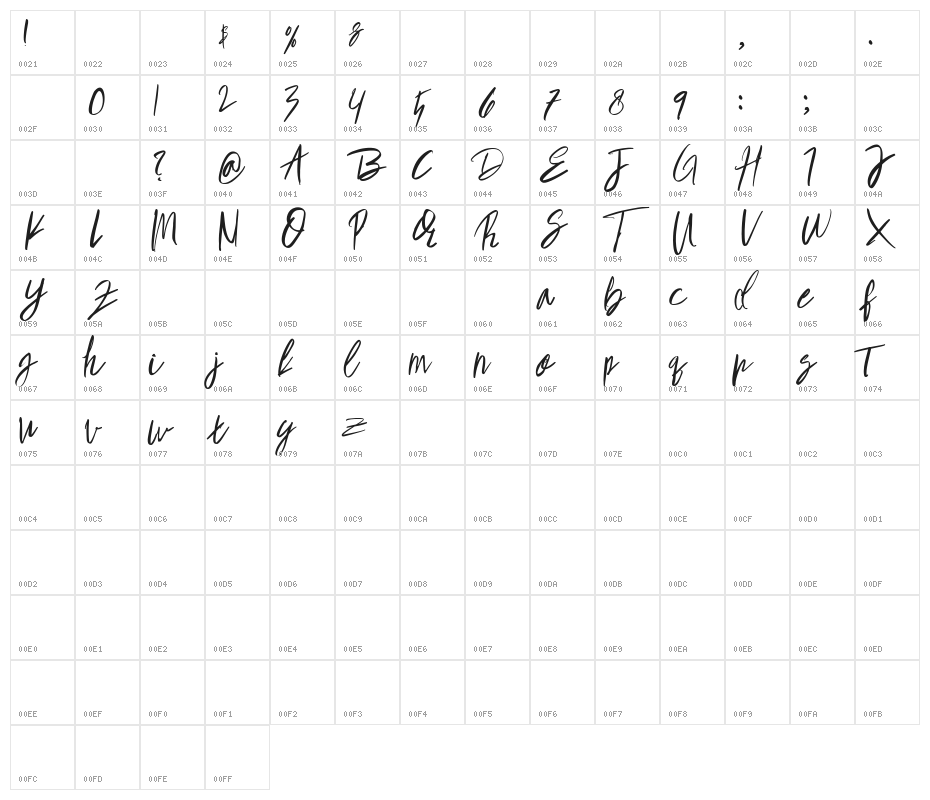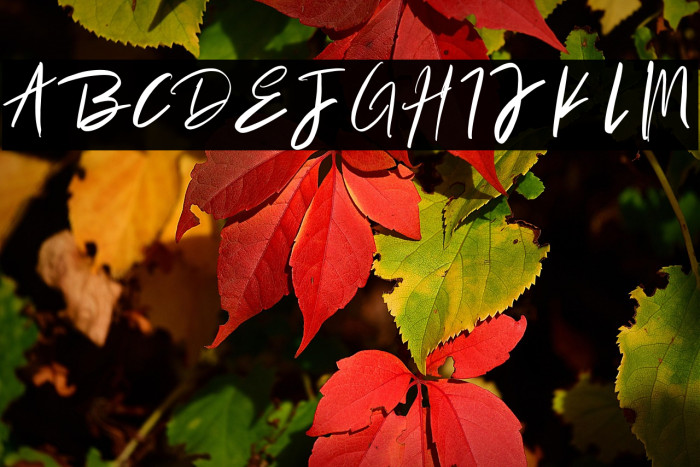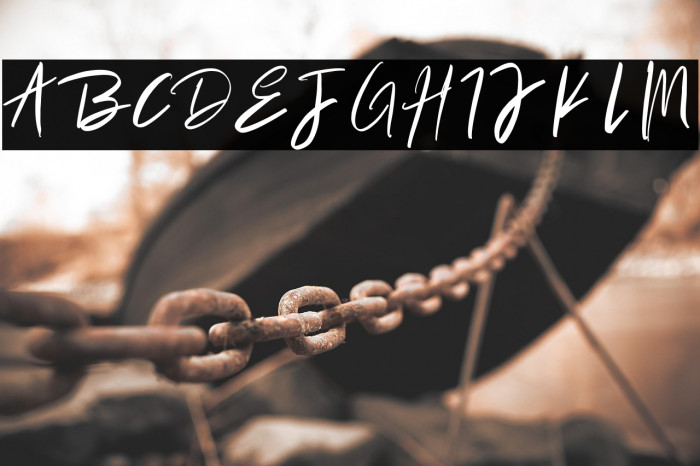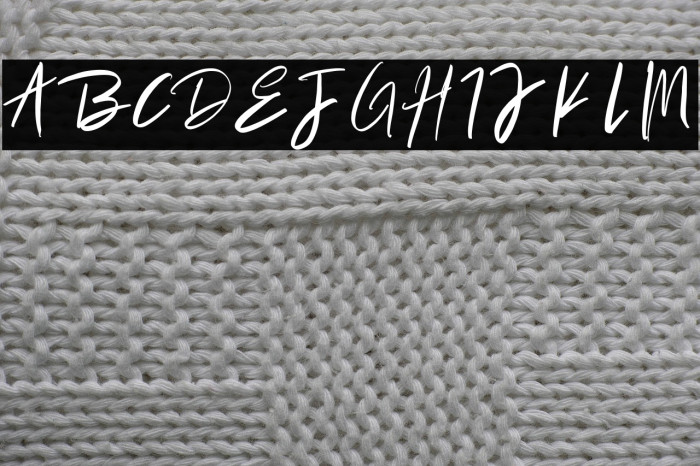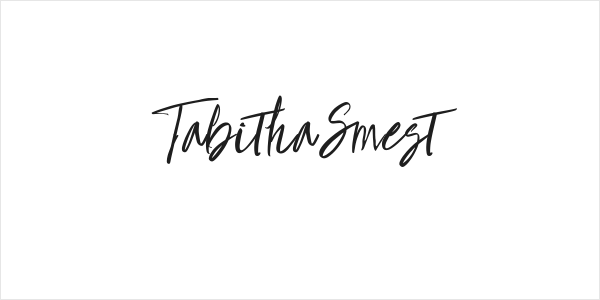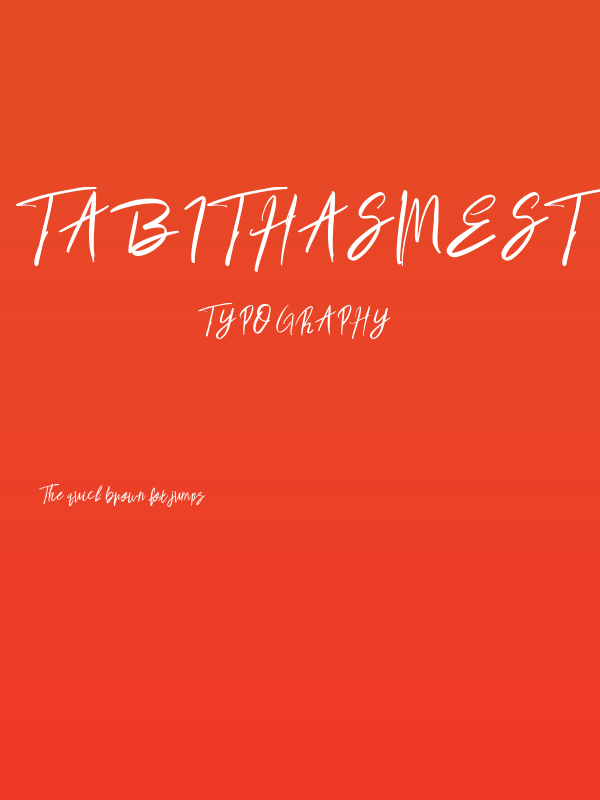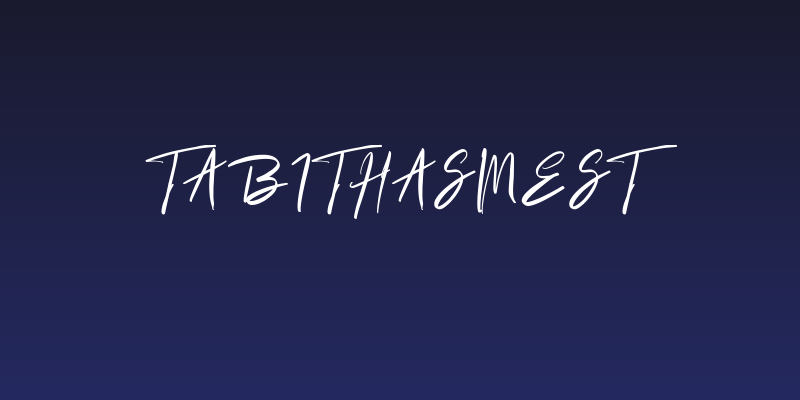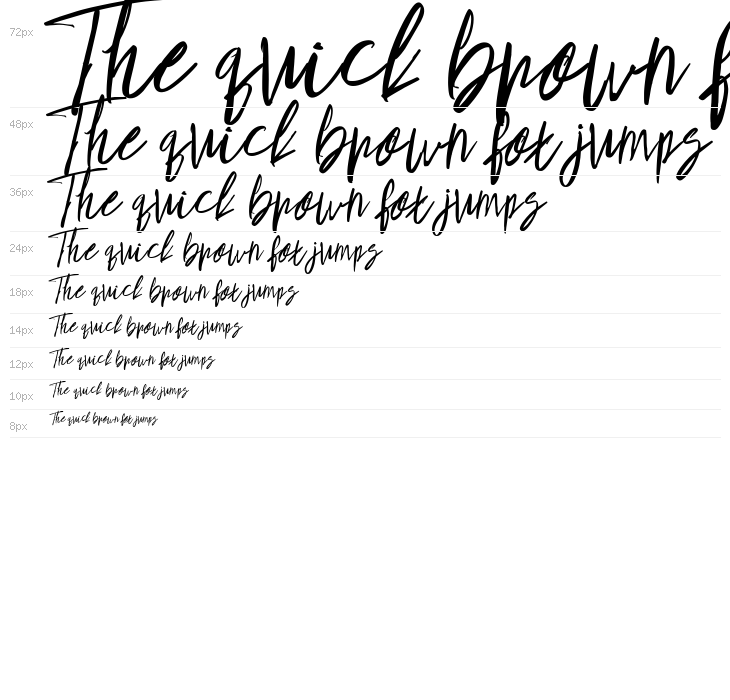
TabithaSmest Font
TabithaSmest Description
This font features a dynamic and expressive handwritten style, characterized by its fluid and cursive letterforms. The strokes are varied in thickness, giving it a lively and spontaneous appearance. The uppercase letters are bold and slightly slanted, while the lowercase letters maintain a consistent flow, enhancing the script-like quality. Numbers and special characters are designed to match the overall aesthetic, with a playful yet sophisticated touch. This font exudes a sense of creativity and personal expression, making it suitable for projects that require a personal or artistic flair.
Use CaseLogos, Headlines, Artistic projects
Proposed ProjectsIdeal for wedding invitations, greeting cards, personal branding, and artistic projects.